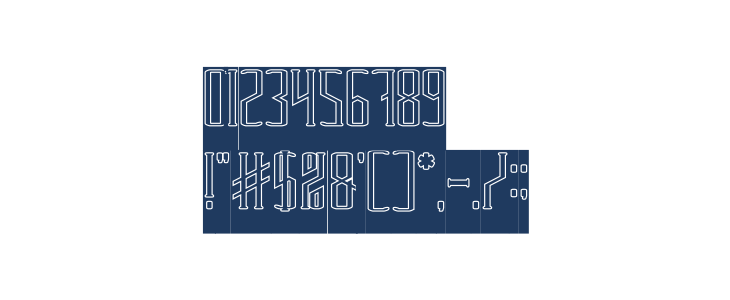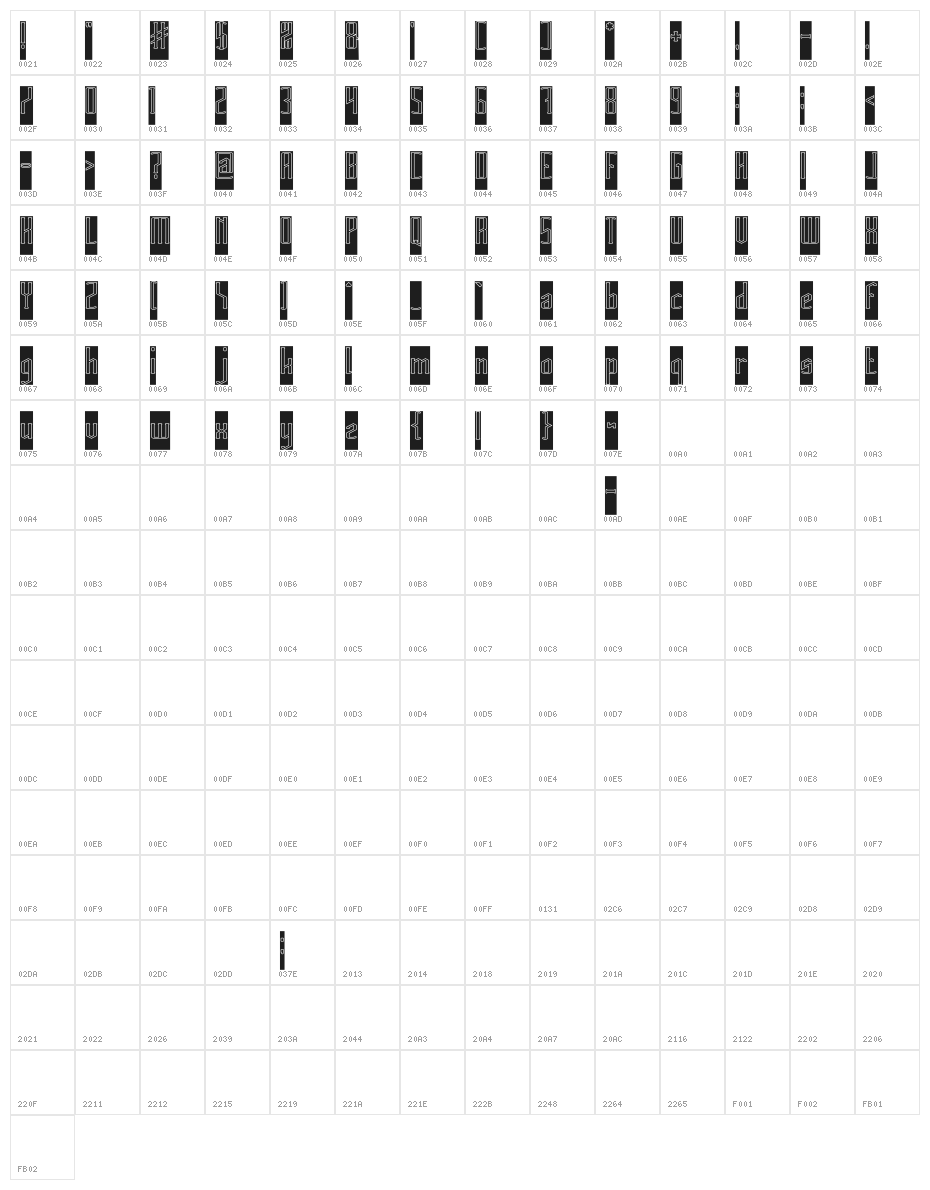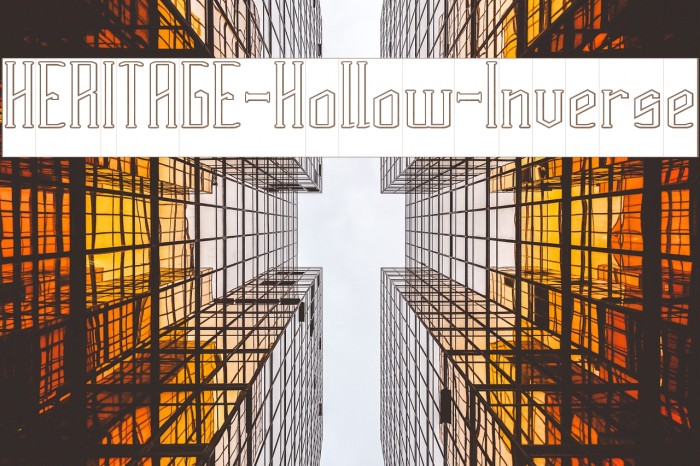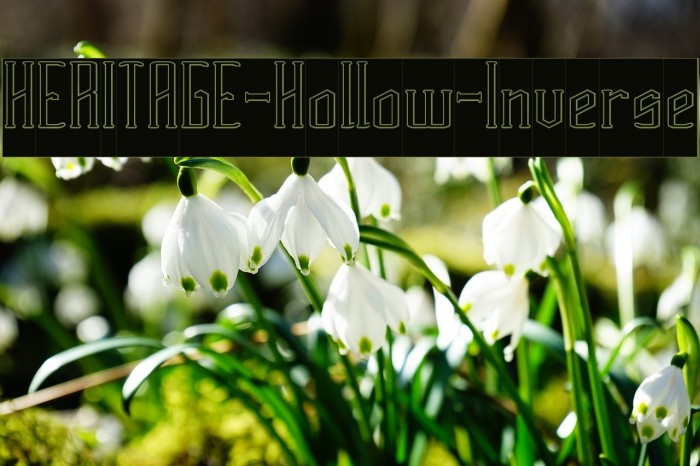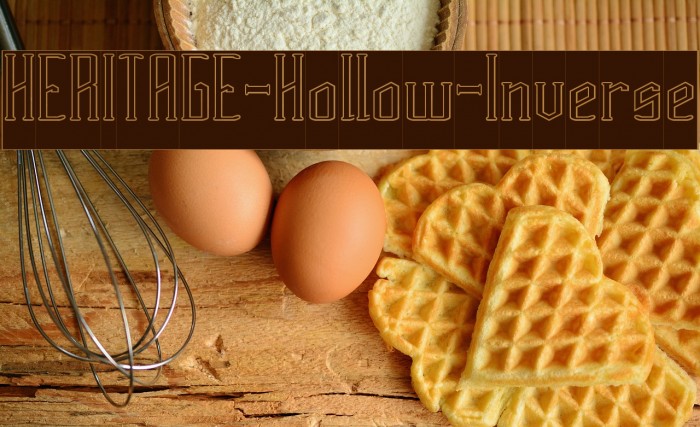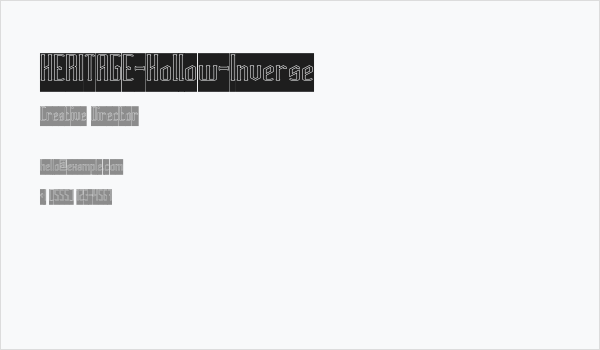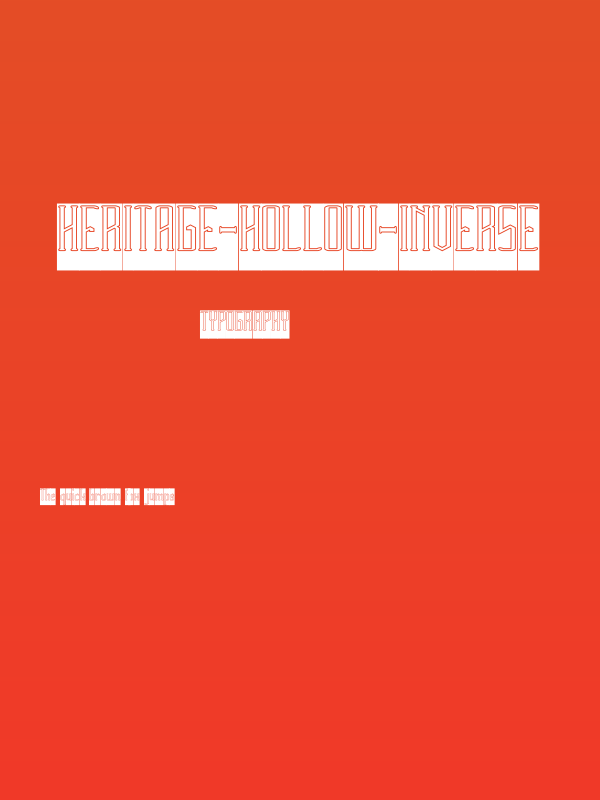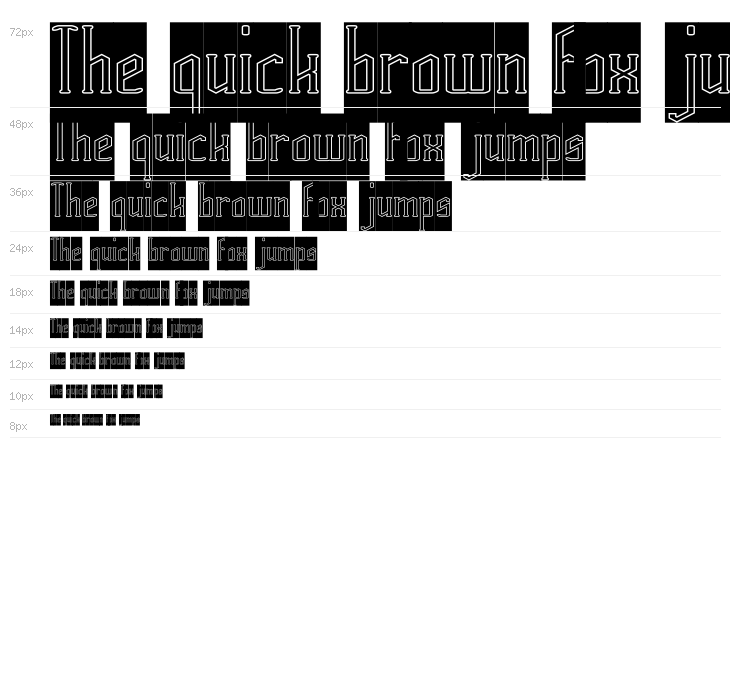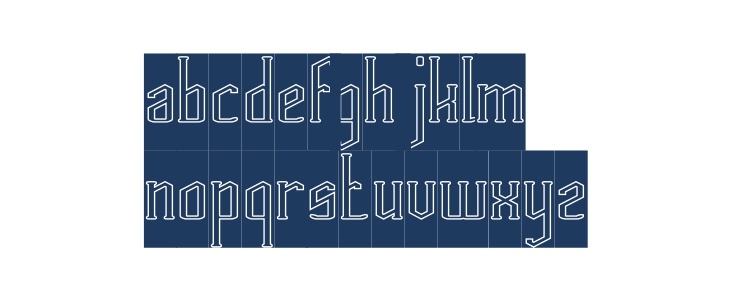
HERITAGE-Hollow-Inverse Font
HERITAGE-Hollow-Inverse Description
This font features a unique hollow design with an inverse style, creating a striking visual effect. The characters are outlined with a consistent stroke width, giving them a modern and futuristic appearance. The uppercase and lowercase letters maintain a geometric structure, while the numerals and special characters follow the same design principles, ensuring uniformity across the set. The font's hollow nature allows for creative use of background colors or textures, making it versatile for various design projects.
| Proposed Projects | Ideal for branding, posters, and digital artwork where a modern and eye-catching font is needed. |